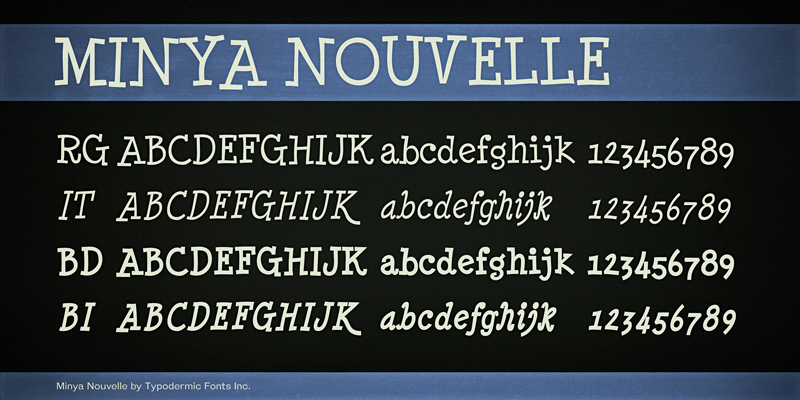
Minya Nouvelle is splashy, casual, typewriter inspired display font family. These fonts include a license that allows free commercial use: sometimes referred to as a desktop license. This allows you to install the fonts on a computer and use them to create posters, web graphics, game graphics, t-shirts, videos, signs, logos and more. Read the license agreement for details. If you'd like to embed these fonts in an app, ebook, on the web or anything that's not covered by the desktop license agreement, visit the link below. You'll find distributors who offer different types of licenses or you can contact me for help. http://typodermicfonts.com/nouvelle-minya-nouvelle/ |